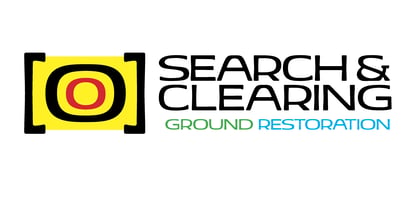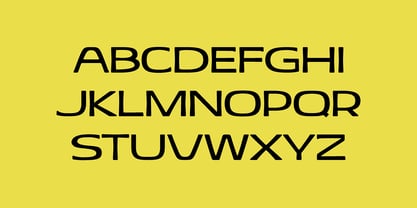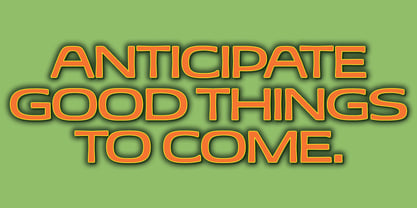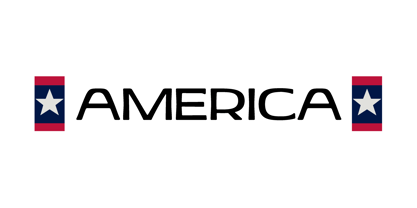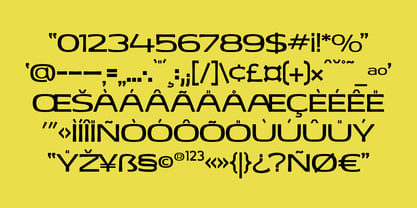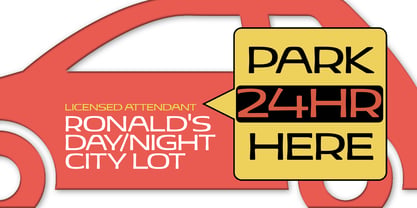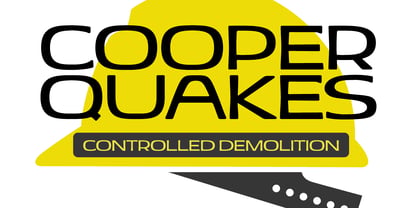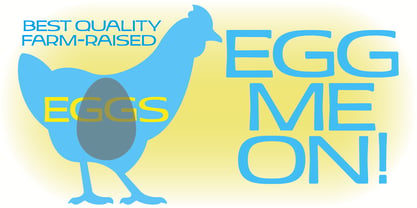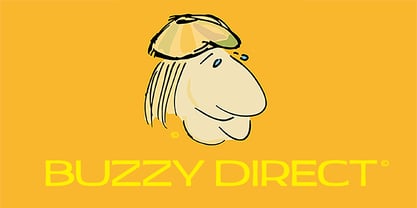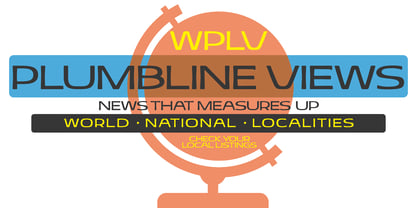
Anticipate
by Settled Font Foundry
The Anticipate Font Family was designed by Gary Jaffe and published by Settled Font Foundry. Anticipate contains 1 styles. More about this family
"Anticipate" is a double-mapped (copied to lower case keyboard keys), ALL CAPS Latin-1 font designed for a great variety of applications: headlines, posters, signage, billboards, mastheads, television graphics, street signage, etc. As in all of our fonts, every node and handle is important; every curve precisely overlooked. Our hope is to add beauty to our world for everyone seeing it, and joy and a good sense of accomplishment for everyone using it.
Designers: Gary Jaffe
Foundry: Settled Font Foundry